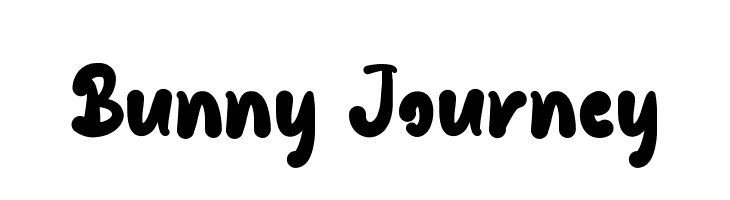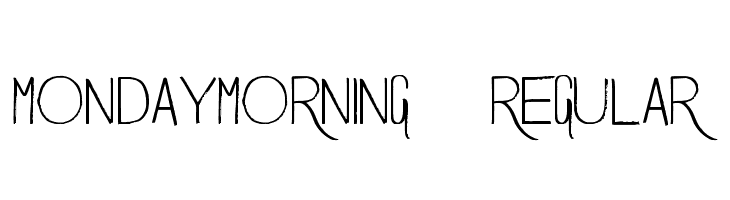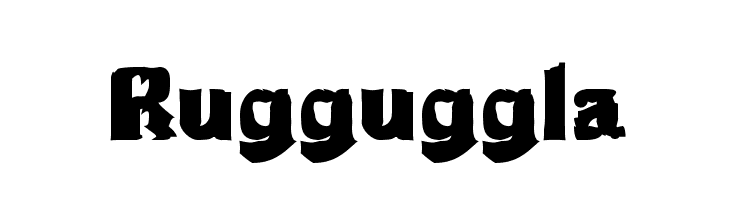
( Fonts by Alex Tomlinson - Skyhaven Fonts - shfonts.com )
A whimsical, hand-drawn font with elongated strokes and playful curves.
A playful, hand-drawn font with a spooky, irregular style.
( Fonts by William Koch )
A playful, hand-drawn style with thin, uneven strokes and a whimsical feel.
( Fonts by Mr Fisk - Mike Larsson - fontorama.net )
A decorative, distressed font with jagged, graffiti-like uppercase letters.
A bold, playful script font with a handcrafted feel.
( Misti's Fonts - mistifonts.com/ )
A playful and whimsical font with decorative loops and rounded elements.
A modern, geometric font with clean lines and a minimalist aesthetic.
A bold Gothic font with sharp, angular lines and intricate detailing.
( Fonts by FallenGraphic Studio )
A bold, rounded font with a playful and friendly style.
( Fonts by Didik Pratikno )